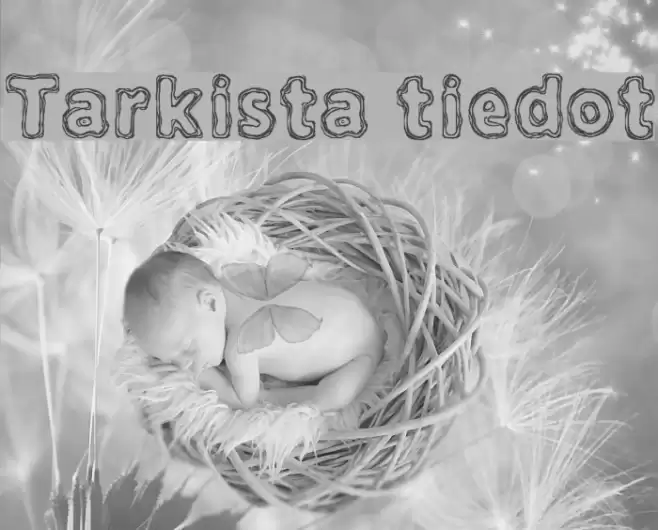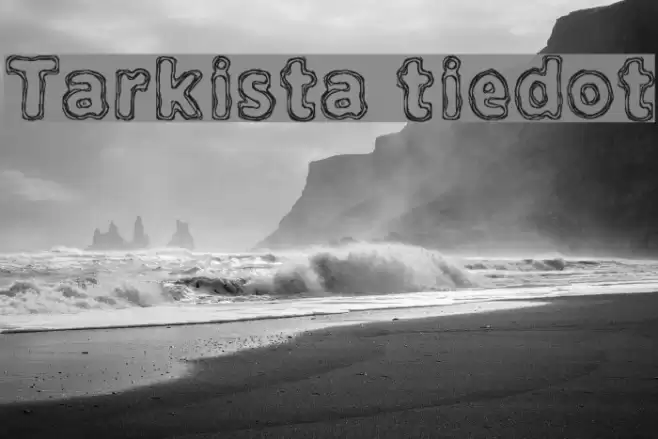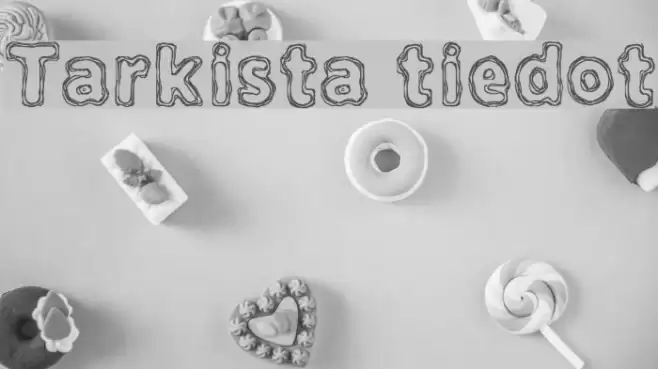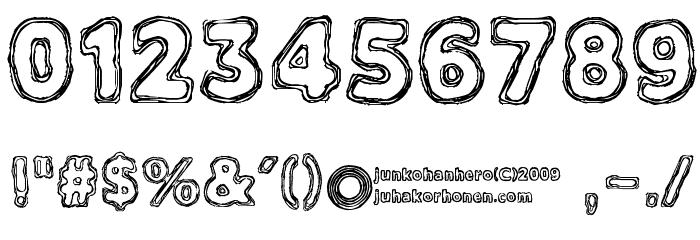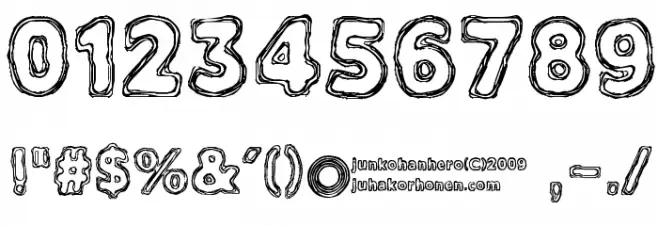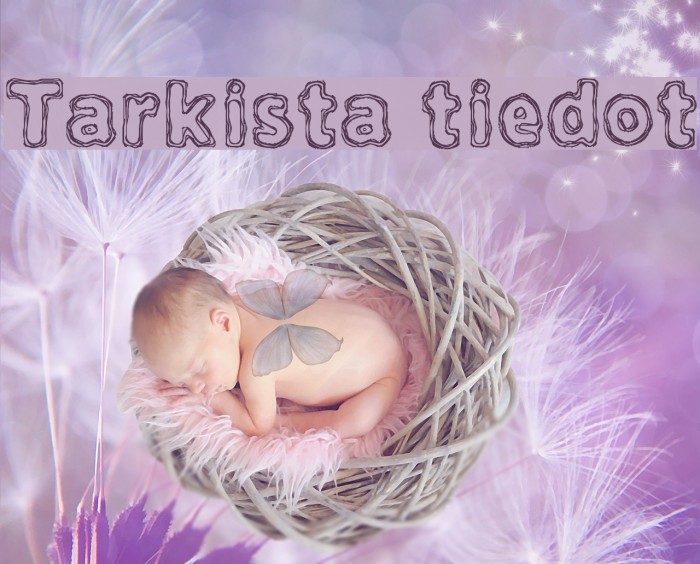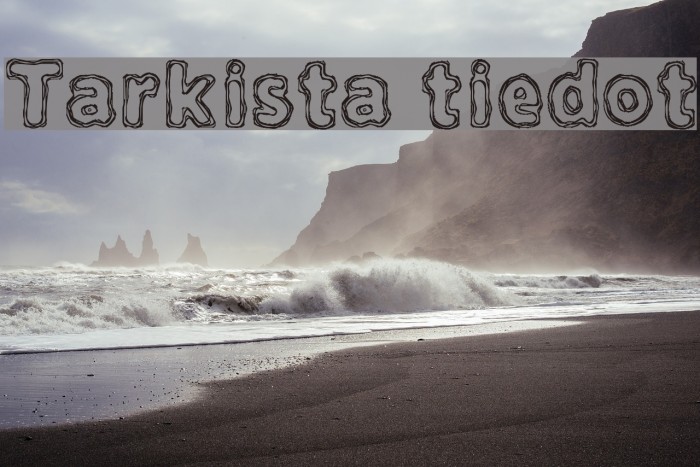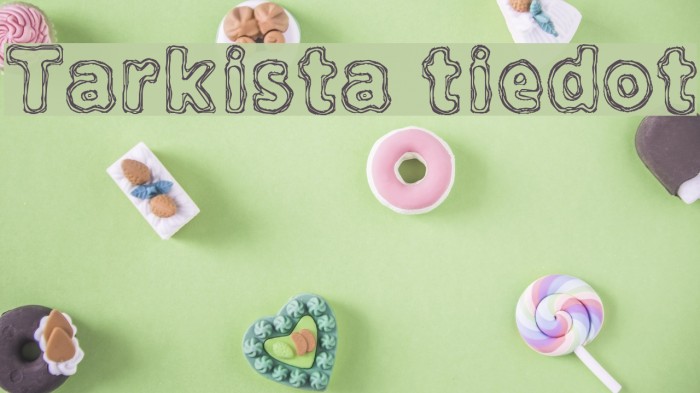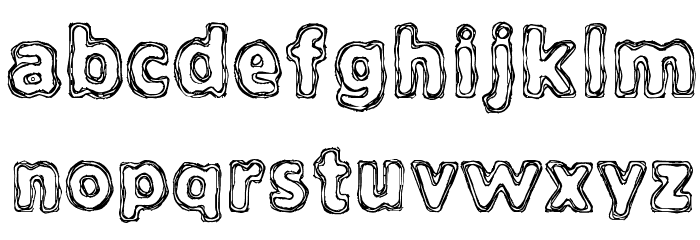
Tarkista tiedot Font
Tarkista tiedot Description
This font features a playful and artistic design with a hand-drawn appearance. Each character is outlined with a double line, giving it a doodle-like effect. The letters are bold and have a slightly irregular shape, adding to the whimsical and informal style. The numbers and special characters follow the same design, maintaining consistency throughout. This font is ideal for projects that require a creative and fun touch, such as children's books, posters, or casual branding materials.
A playful, hand-drawn font with a doodle-like, double-lined style from Distorted Eroded fonts.
- Proposed Projects: Children's books, playful posters, casual branding, creative invitations.
- Overall Style: Playful, Artistic, Whimsical
- Use Case: Headlines, Posters, Creative Projects